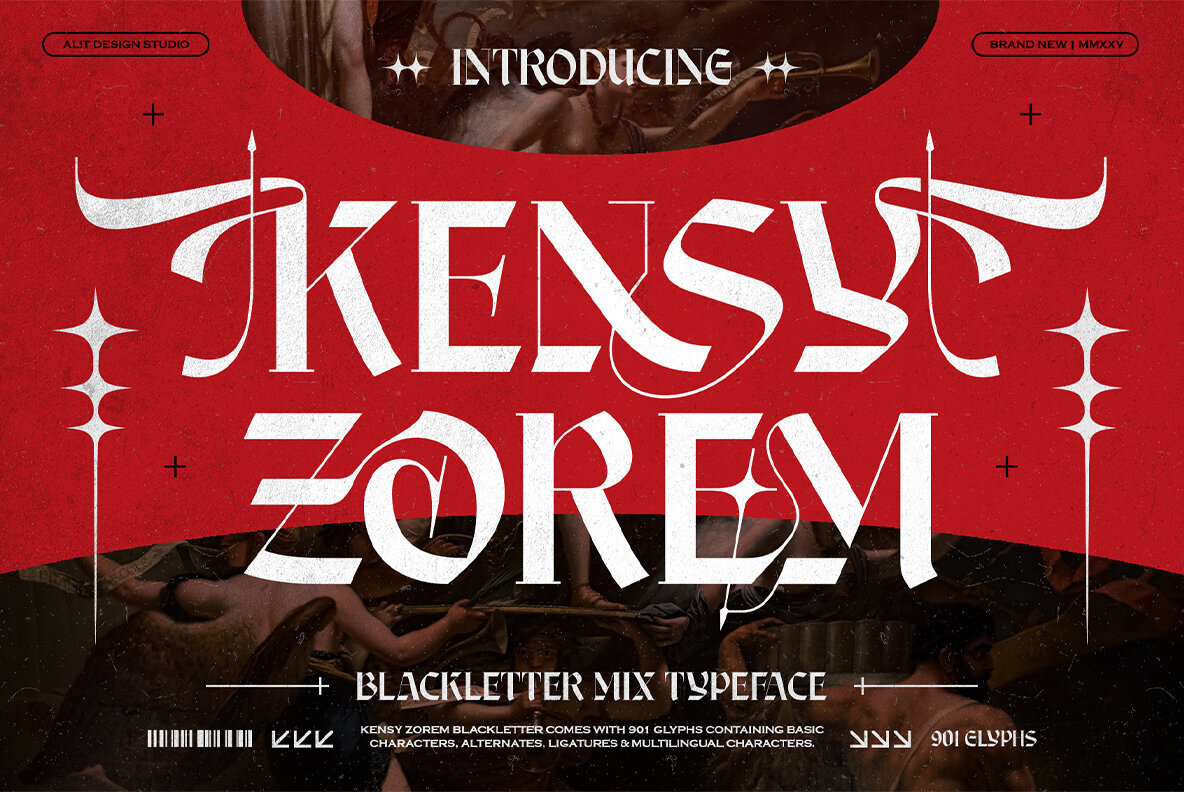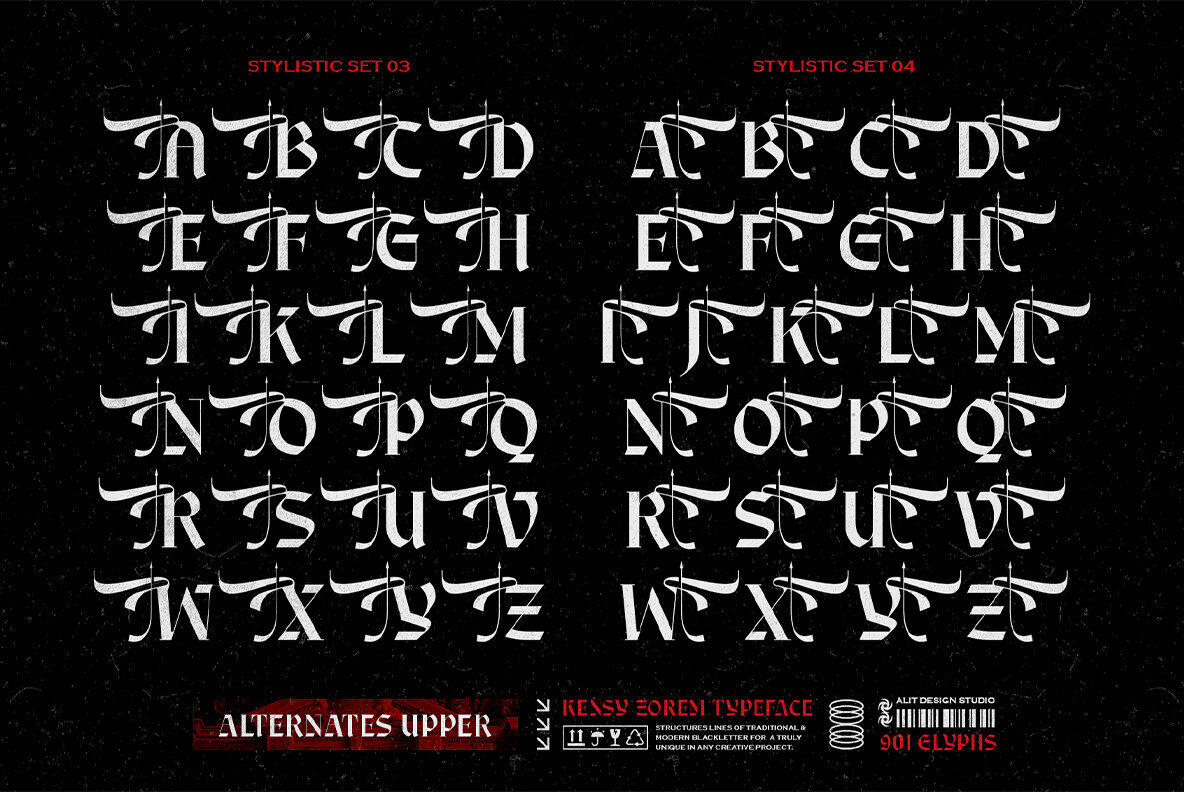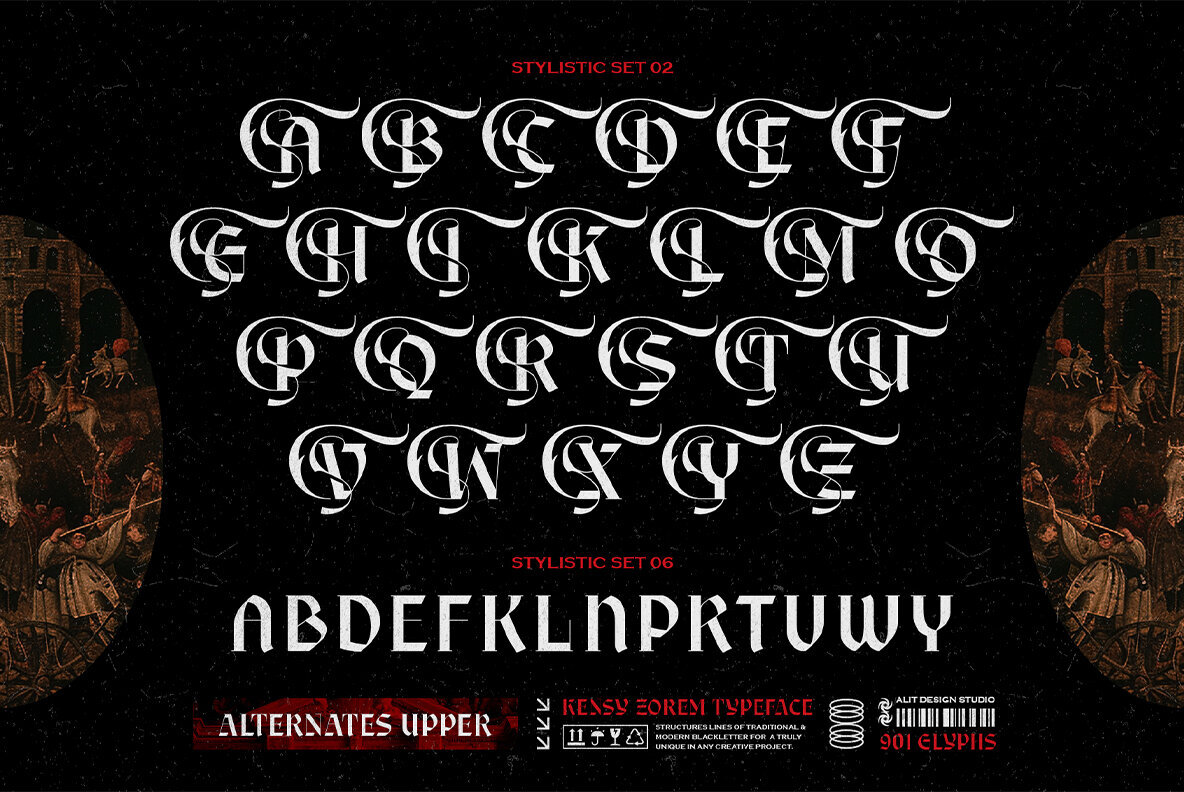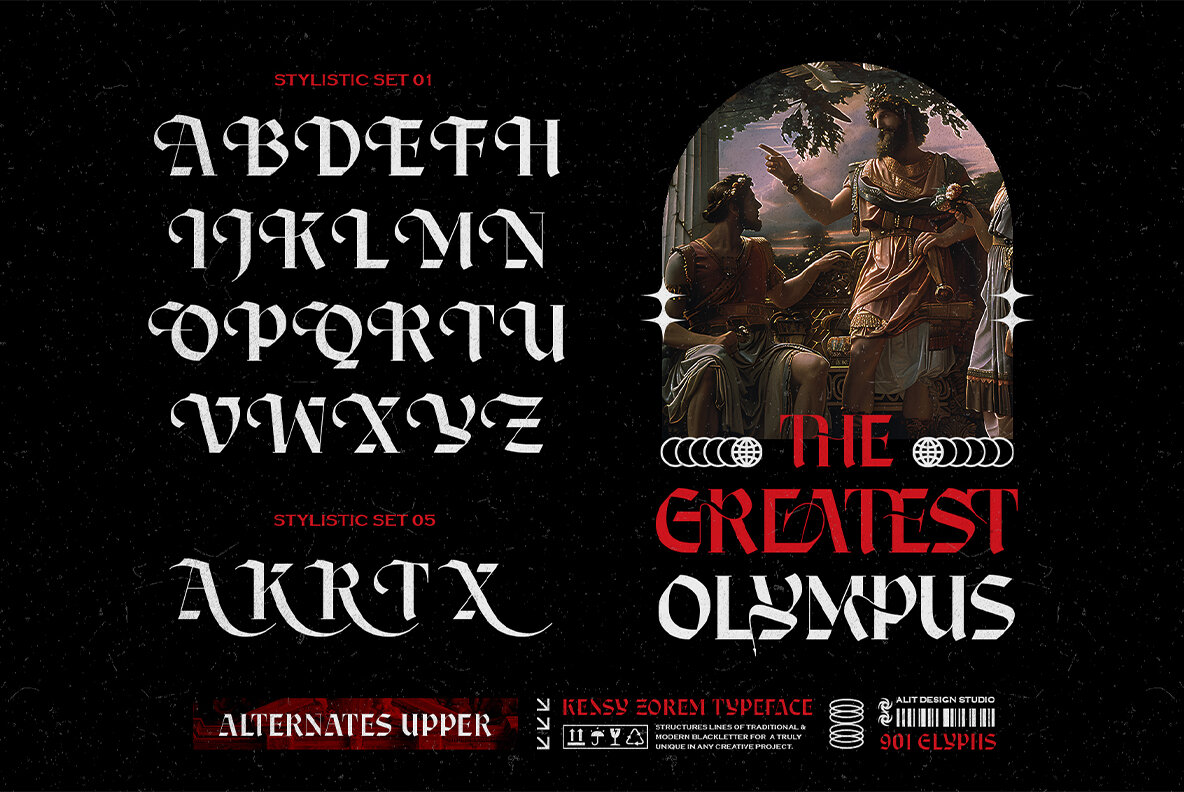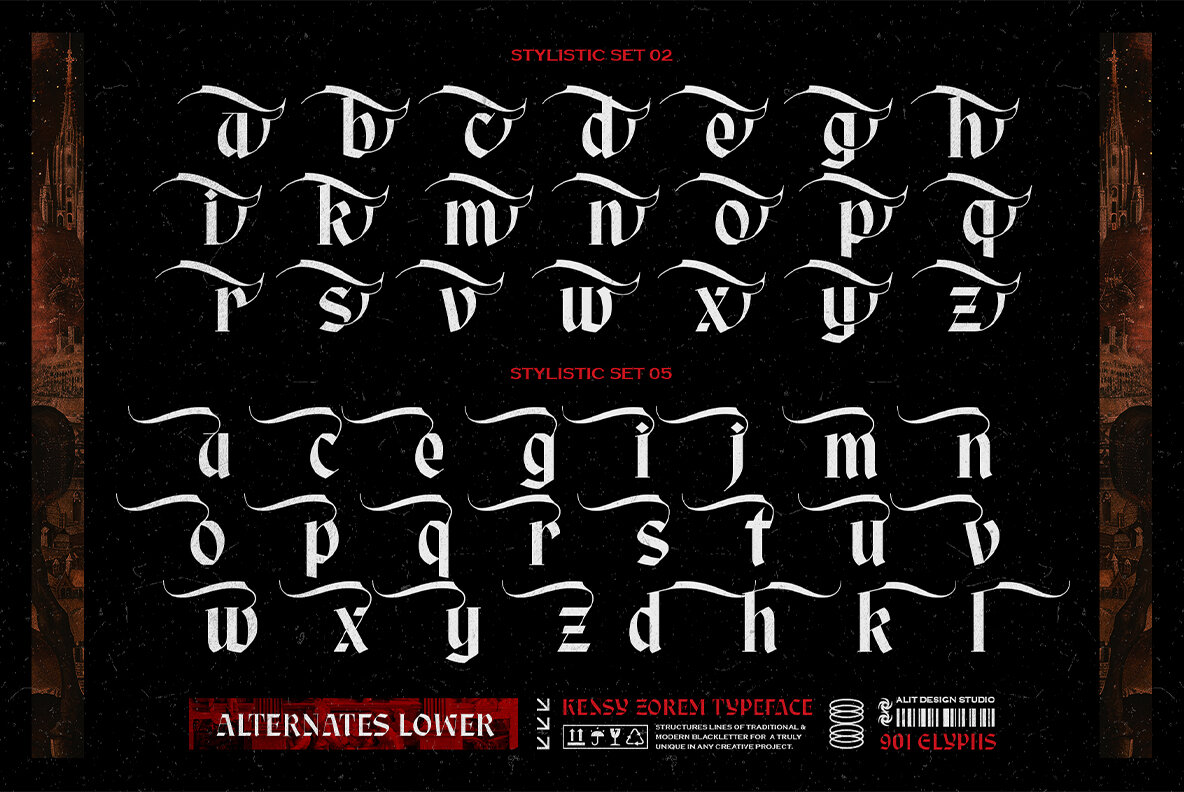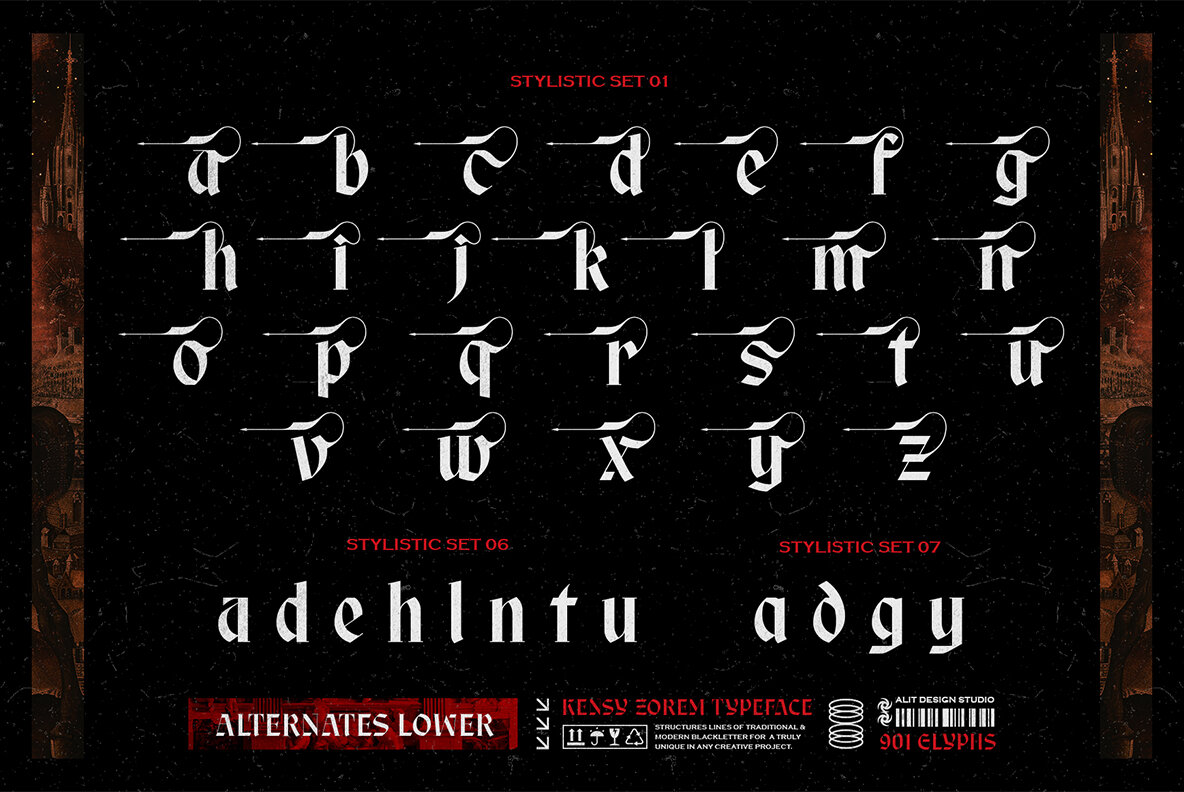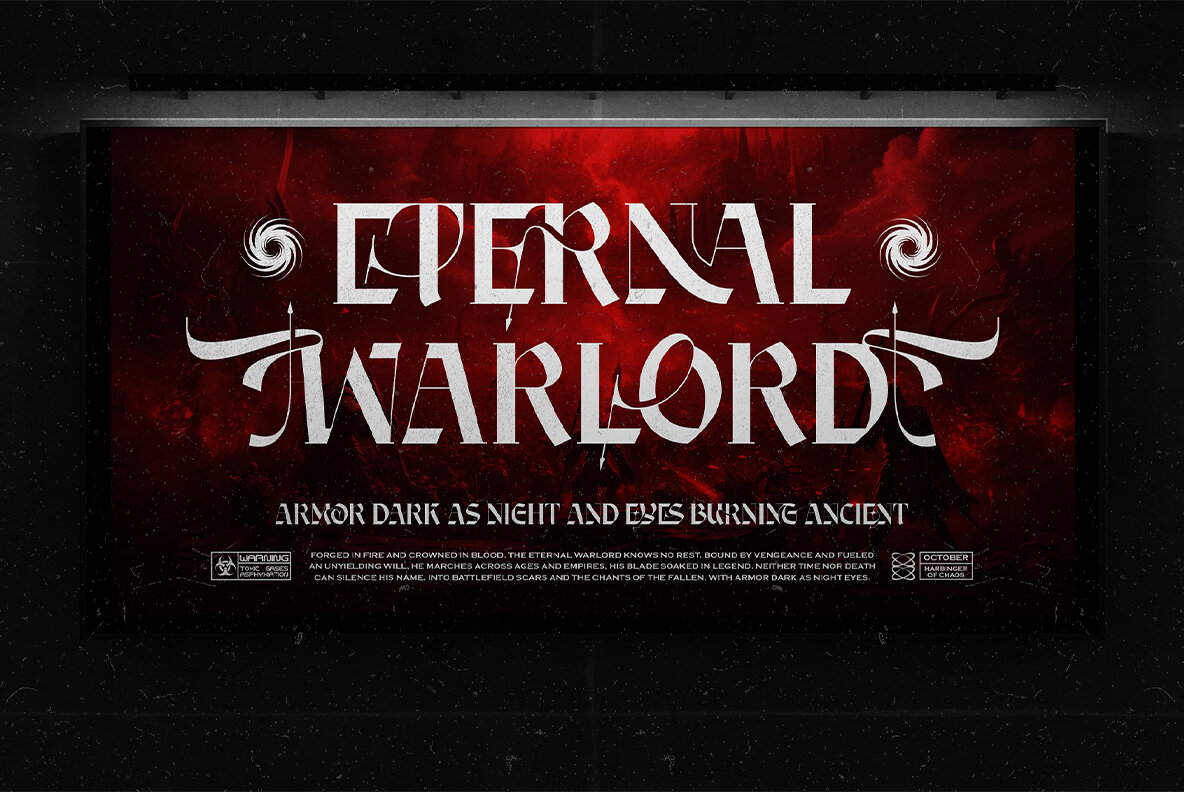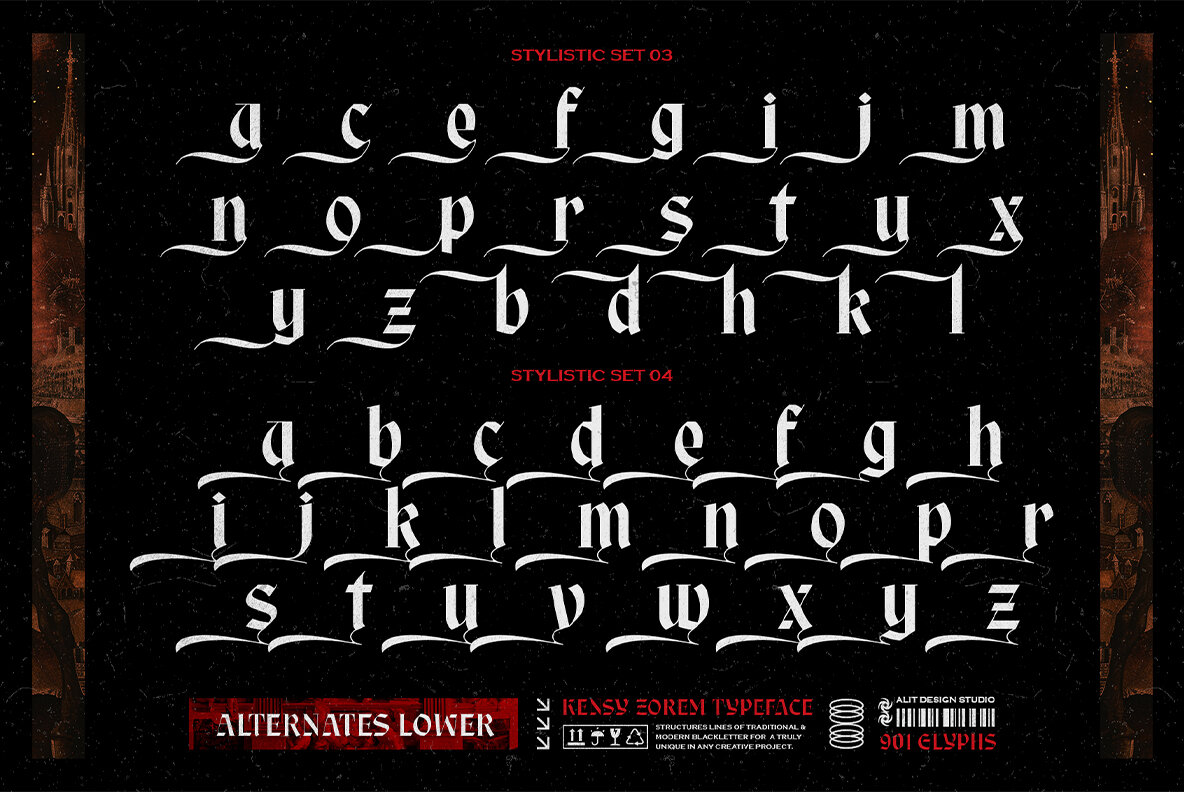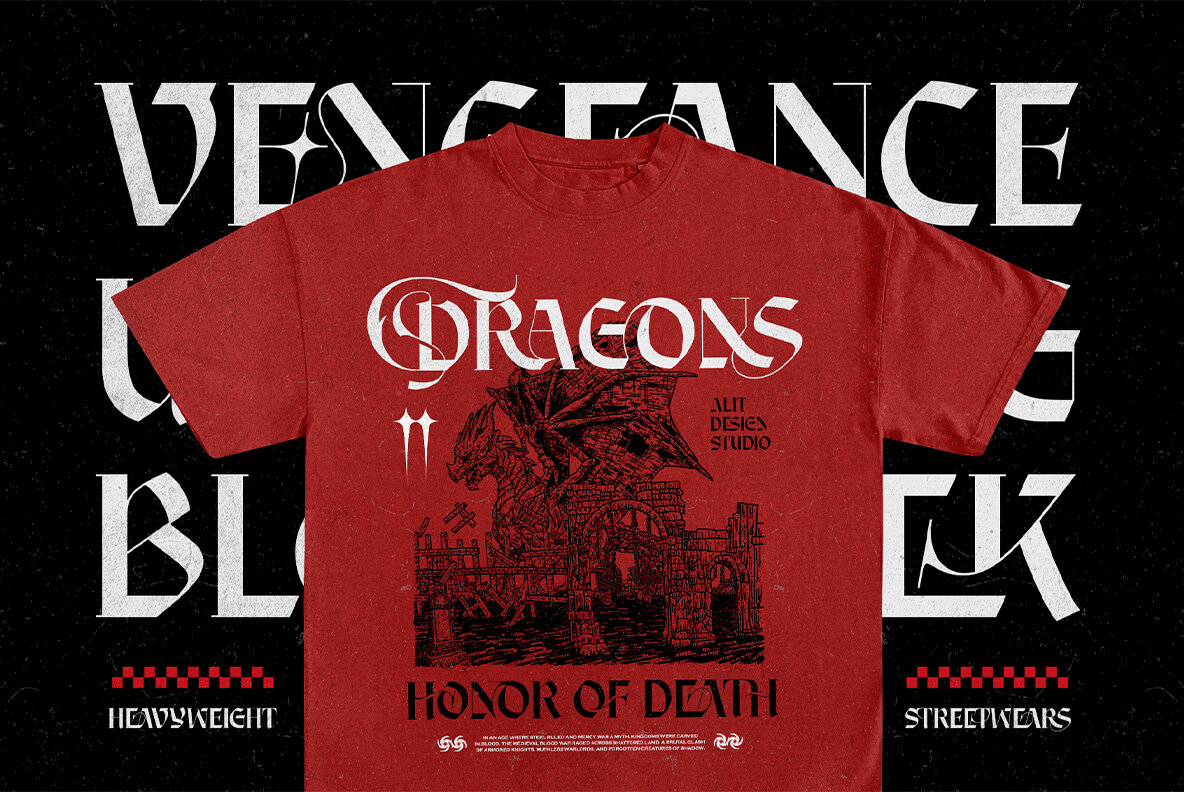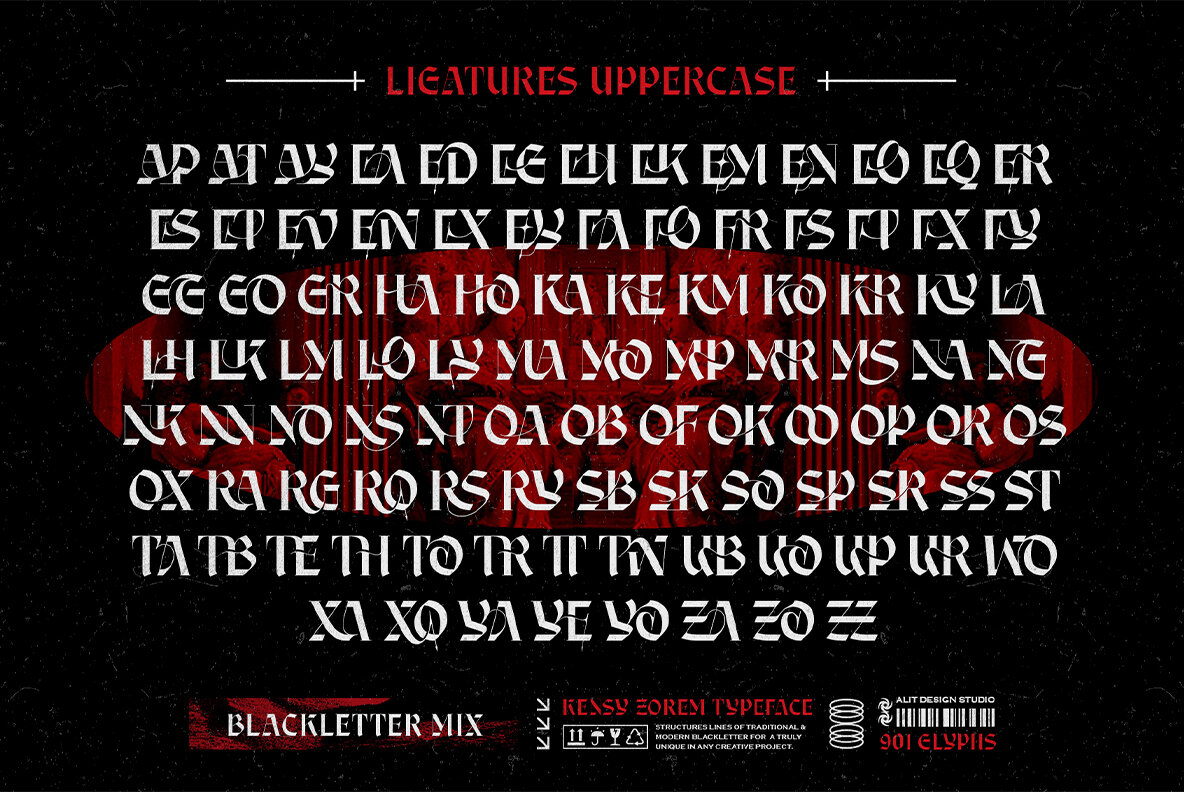
Introducing Kensy Zorem—an awe-inspiring typeface that artfully combines the ornate intricacies of blackletter with the sleek elegance of modern serif design. Perfect for creatives aiming to make a bold visual statement, this hybrid font bridges historical gravitas with a contemporary edge. Kensy Zorem, crafted by Alit Design Studio, draws from the grandeur of Roman heroism, mythological storytelling, and the flair of modern fashion graphics. Whether redefining branding, apparel design, editorial layouts, or digital campaigns, Kensy Zorem brings a distinctive, rebellious flair that commands attention. Kensy Zorem is designed for visual storytelling, merging regal power, gothic mystery, and urban modernism. The font adapts to various tones, from classic elegance to street-culture boldness. It's ideal for logos and branding in luxury, gothic, fashion, music, and streetwear, as well as editorial design for magazine titles, book covers, and headlines. Kensy Zorem Typeface is more than just a font—it's an immersive typographic journey. Ideal for those crafting bold, heroic designs, it seamlessly combines old-world artistry with modern visual culture. Whether seeking gothic luxury or a sharp contemporary brand identity, Kensy Zorem delivers drama, style, and versatility. Let your designs resonate with the spirit of ancient power and modern rebellion.Kensy Zorem Typeface: A Blackletter & Modern Serif Fusion
Aesthetic & Usage
Design Highlights